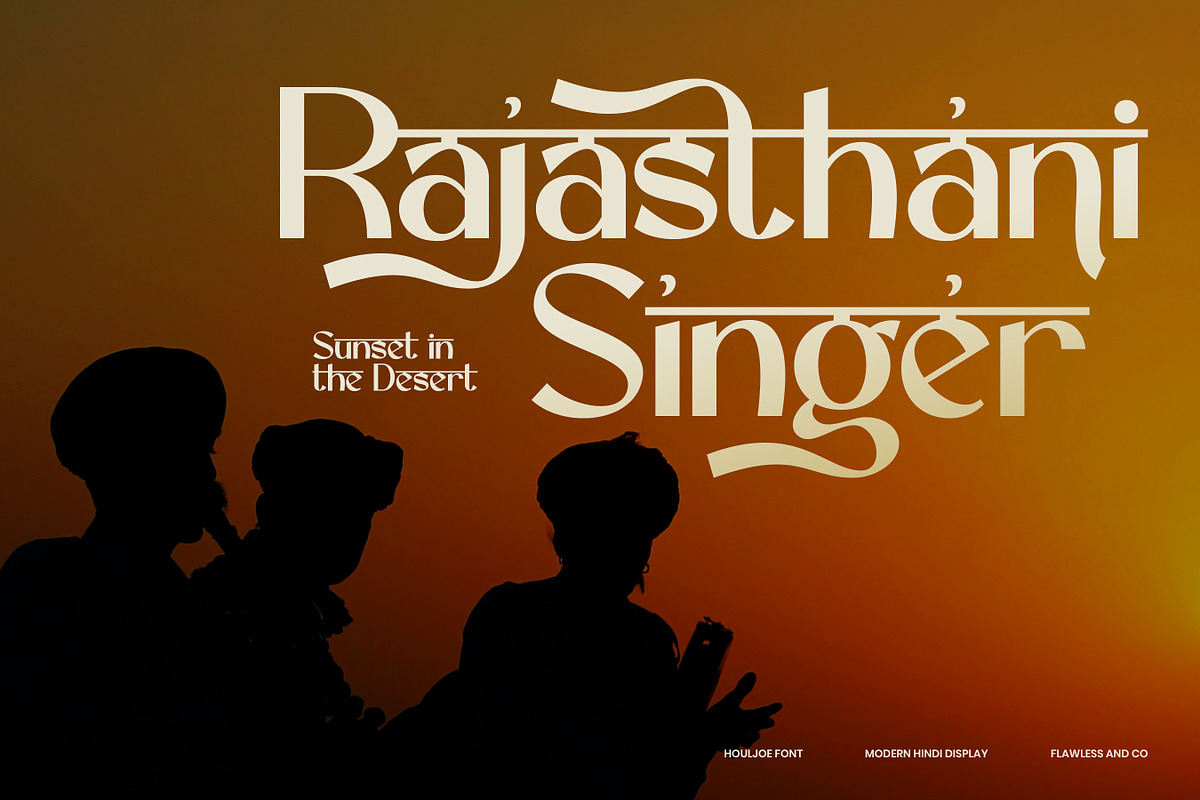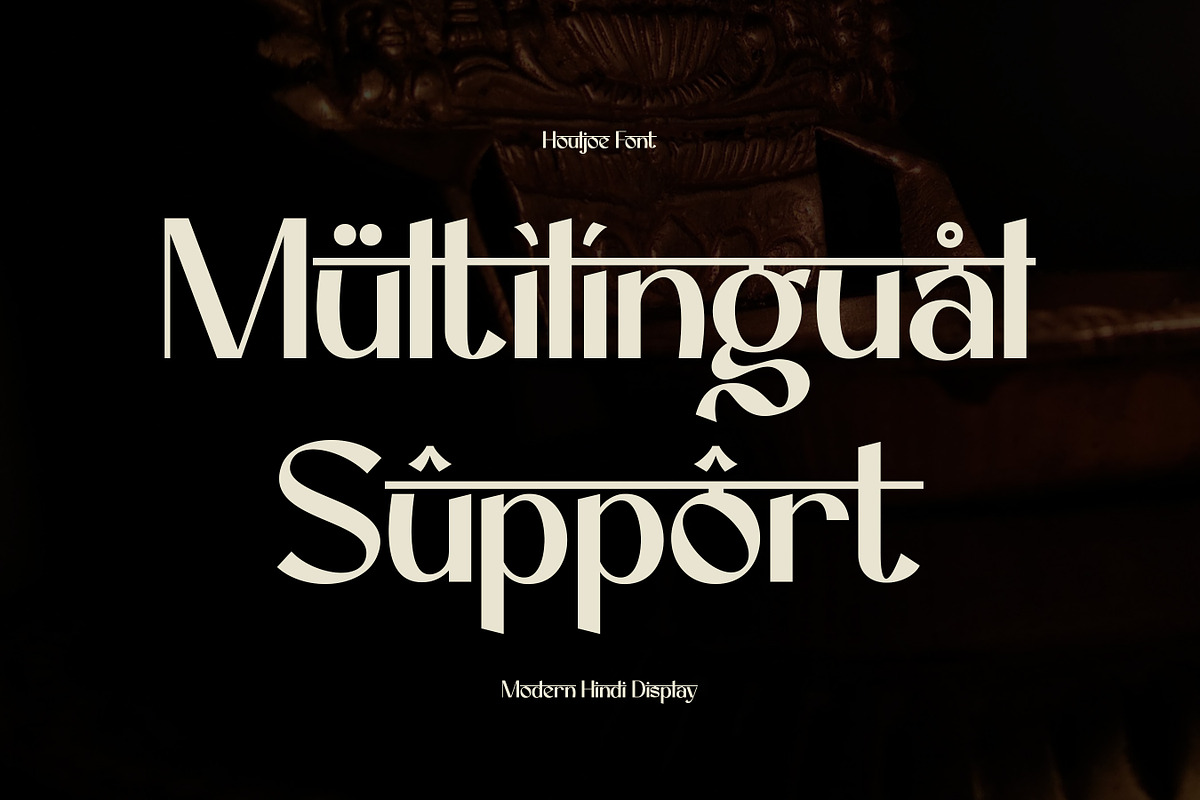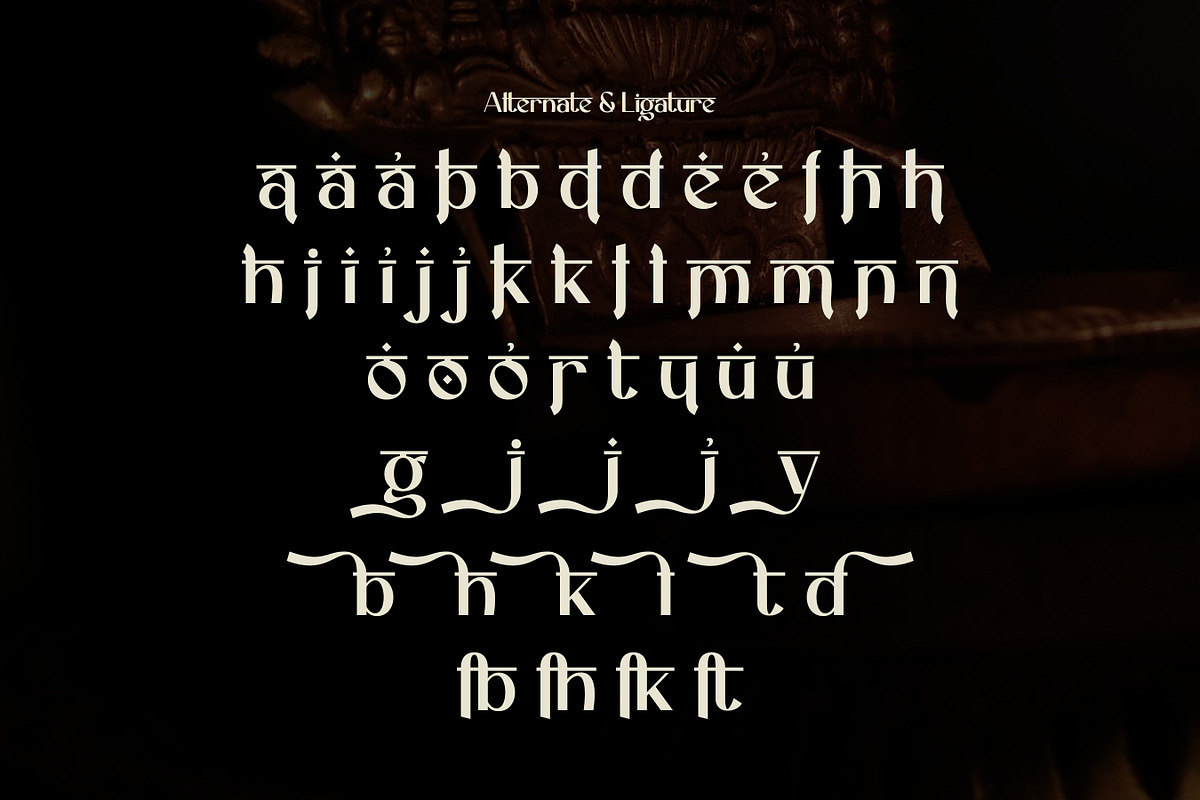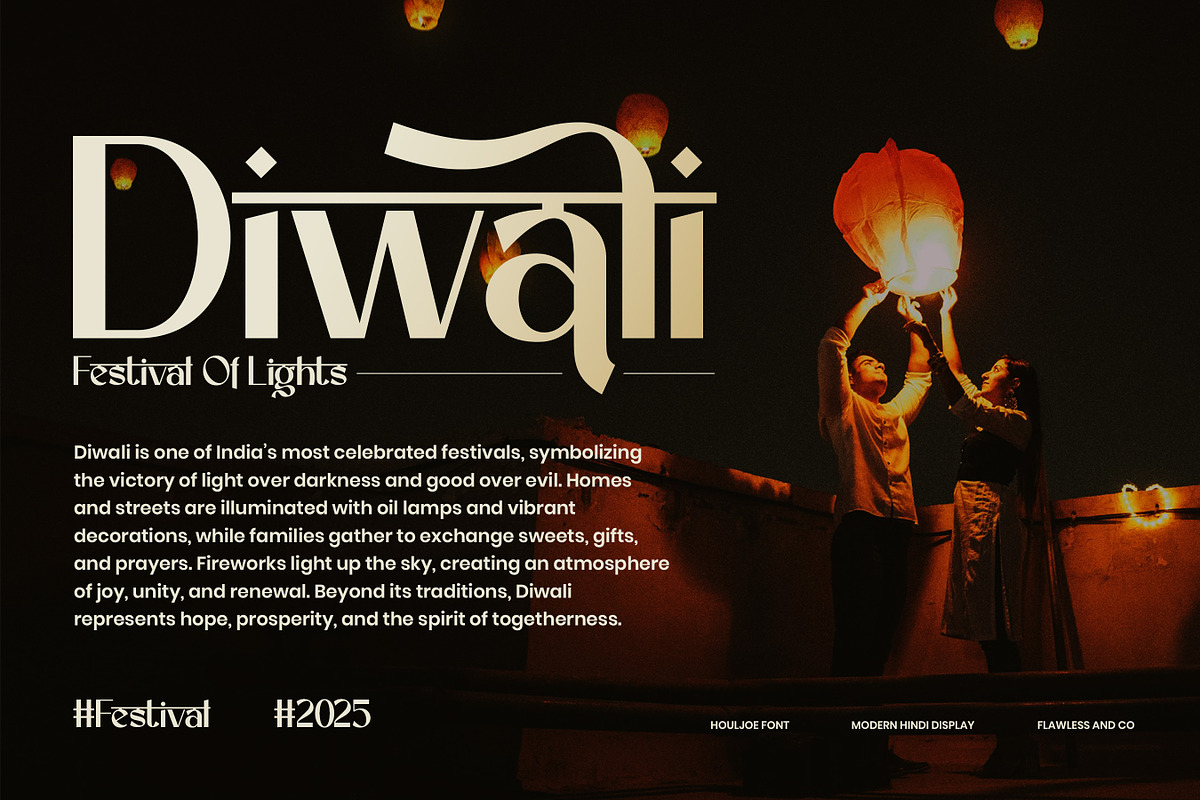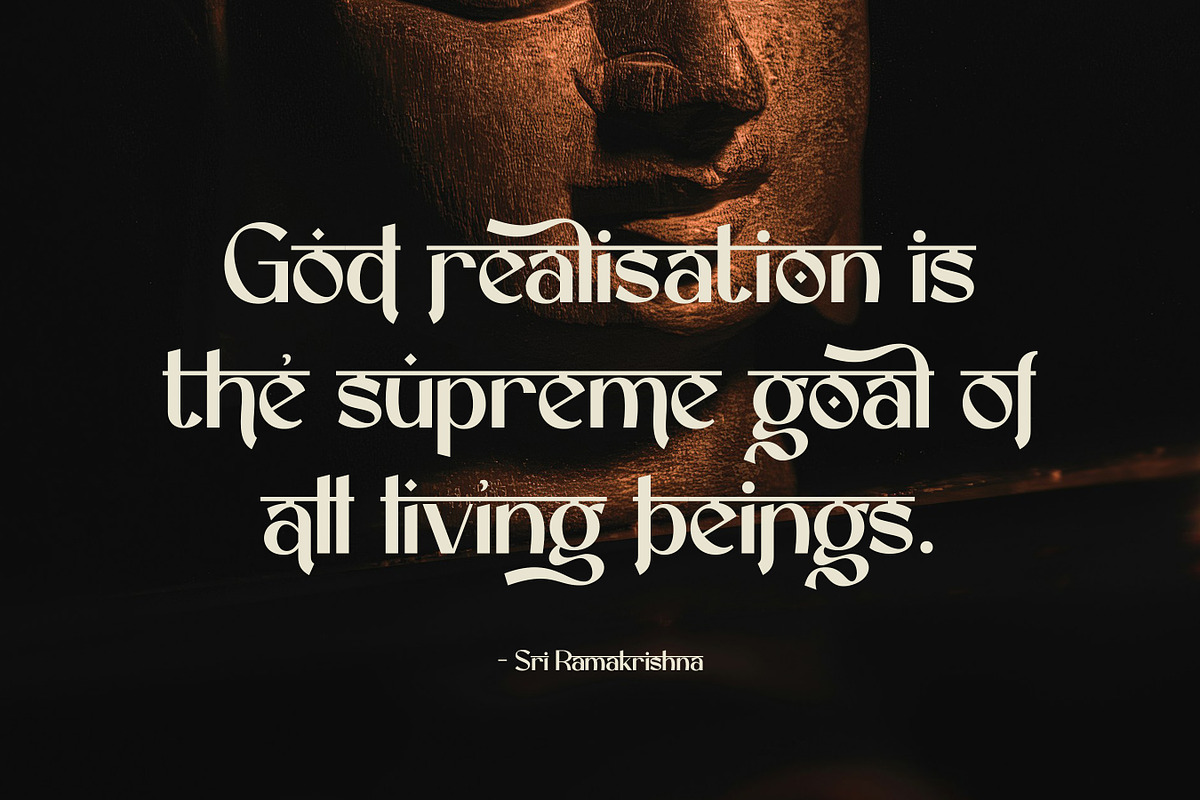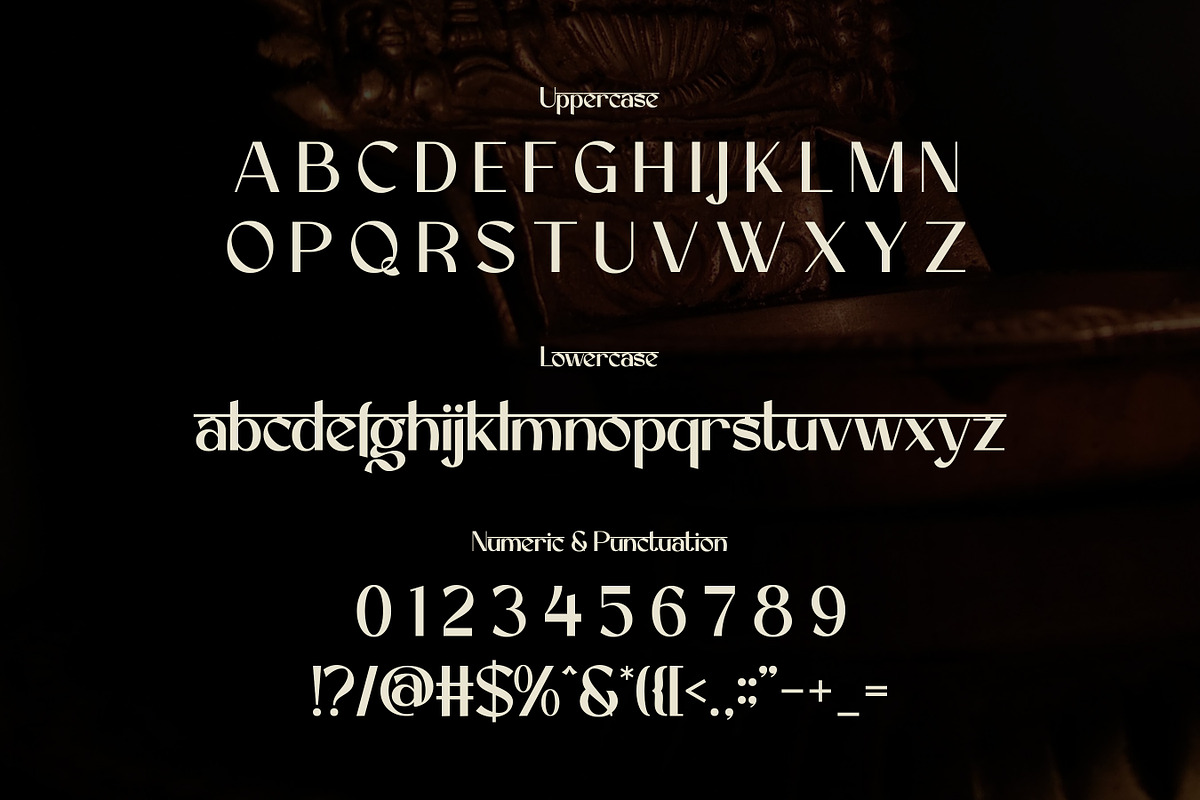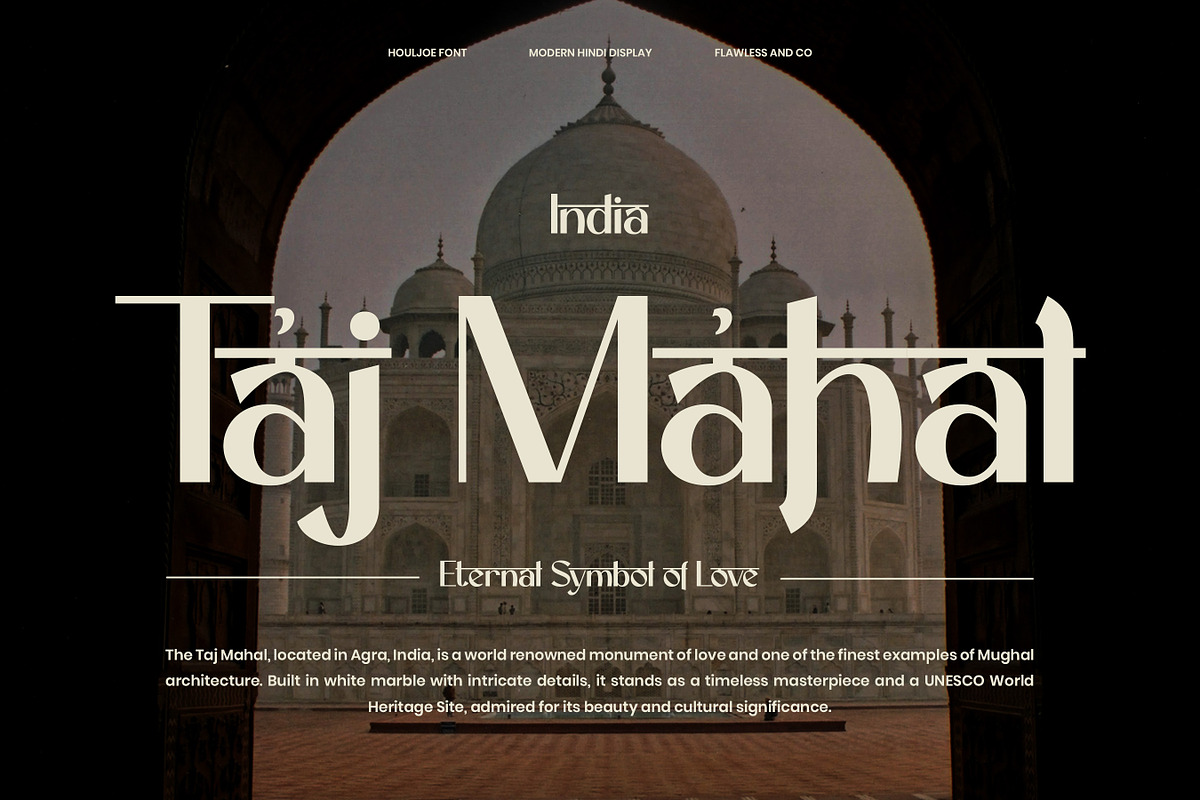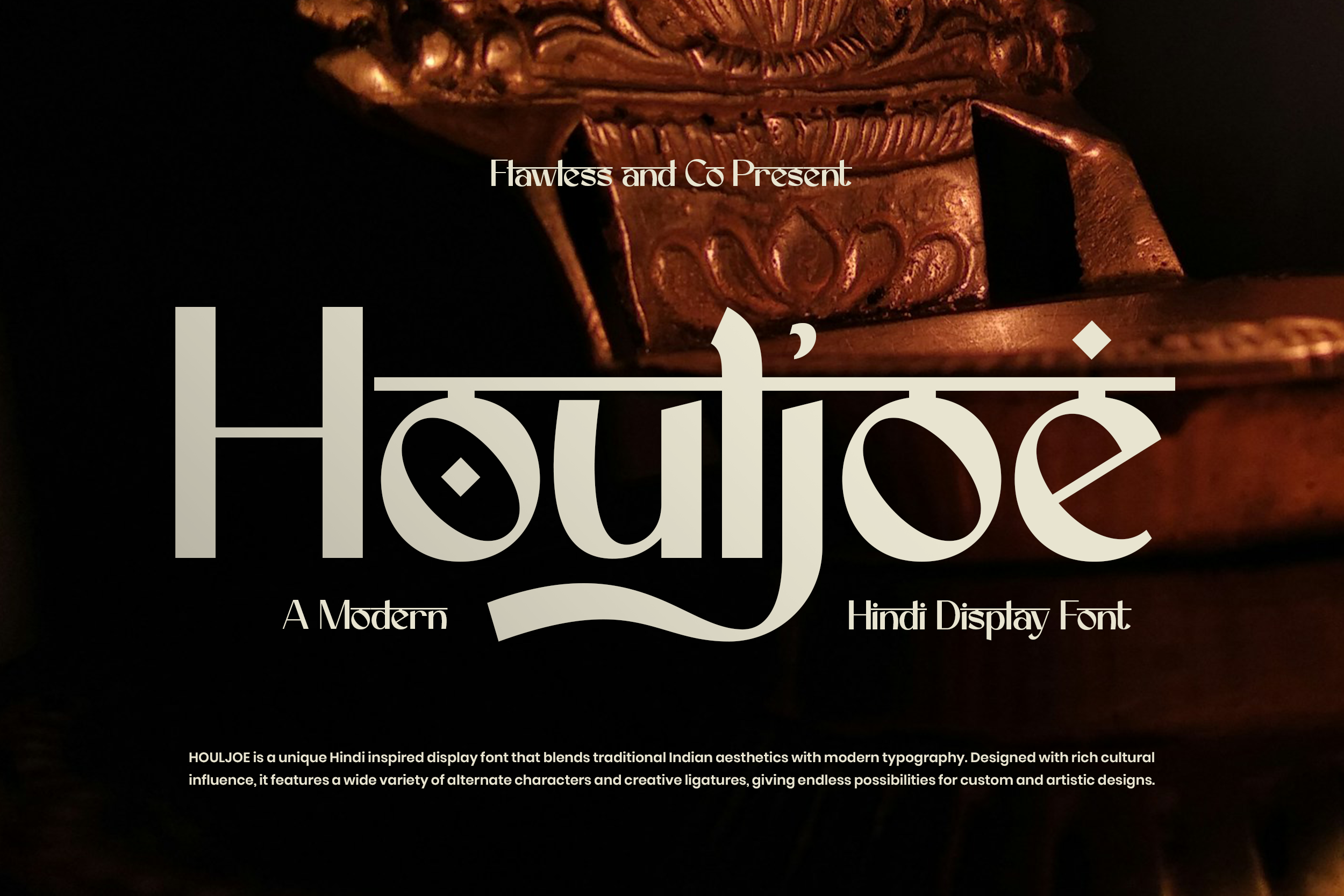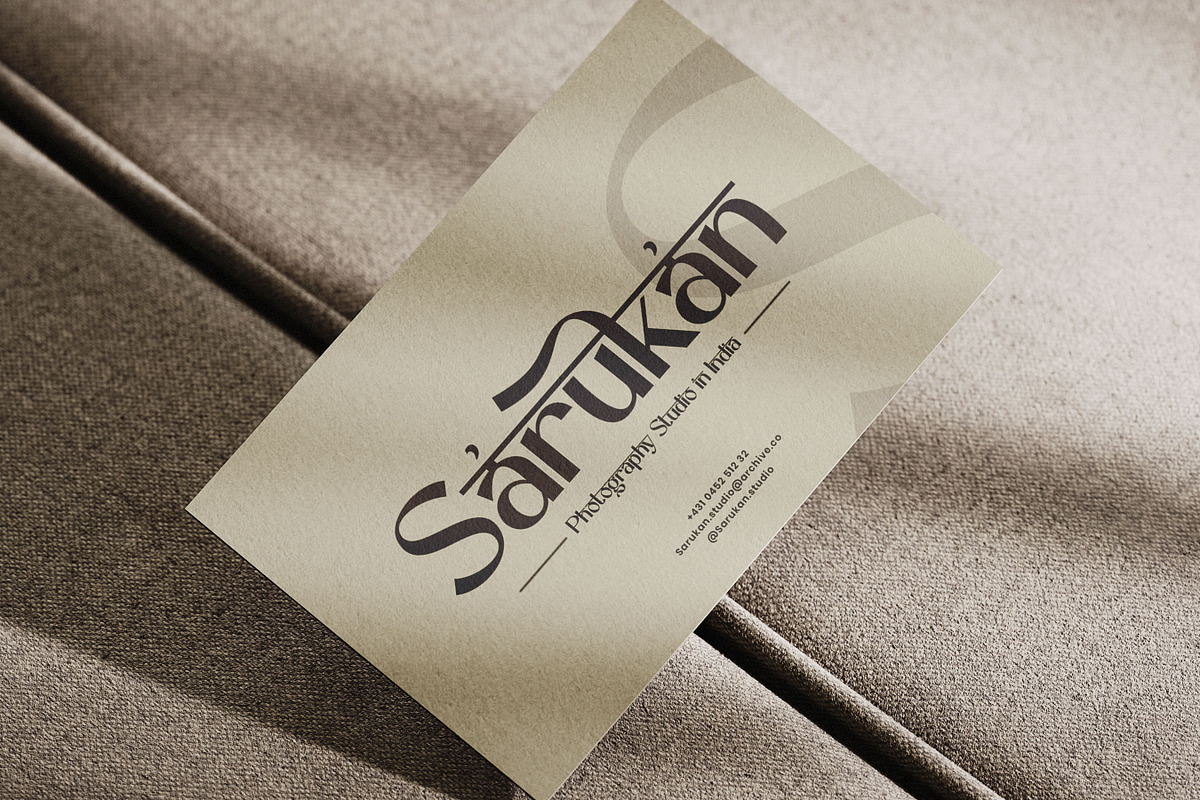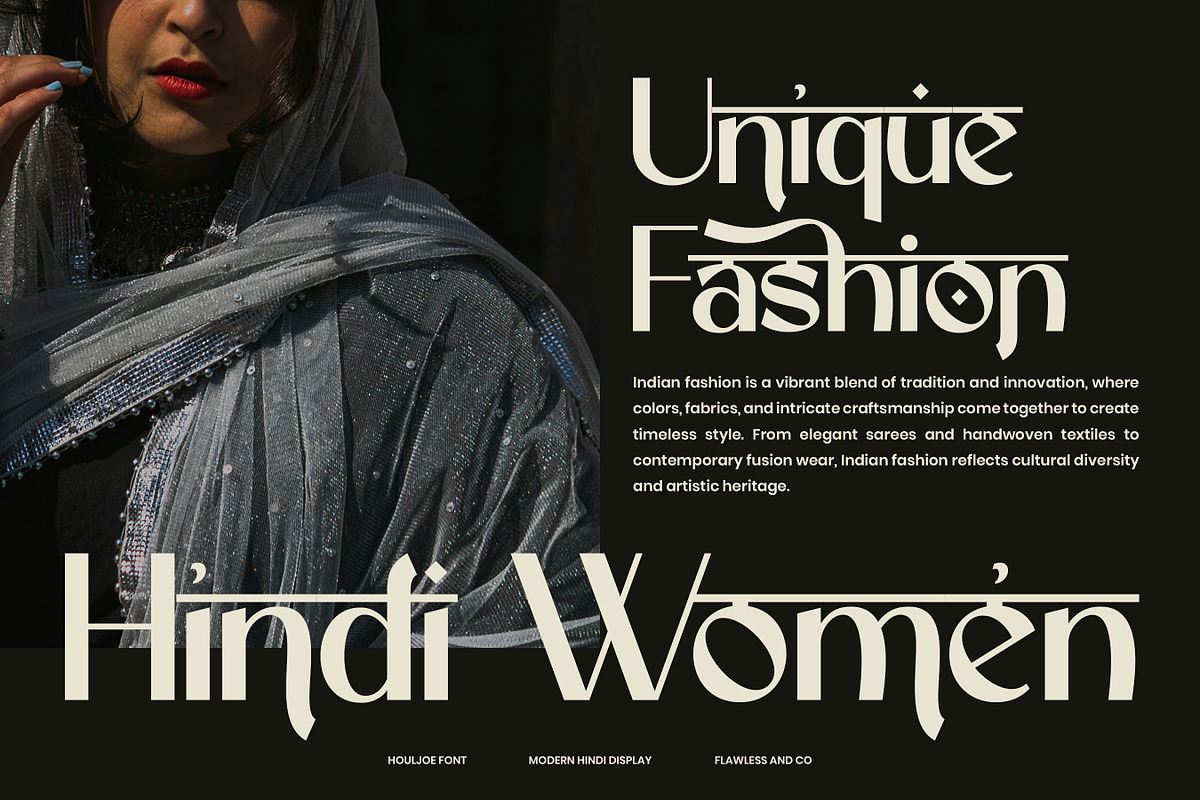
Houljoe - Hindi Display Font
Houljoe - Modern Hindi Display Font
Houljoe is a bold and artistic Hindi-inspired display font that merges cultural heritage with contemporary design. With its unique letterforms and elegant details, it brings a touch of authenticity while staying versatile for modern creative projects. Crafted with inspiration from traditional Hindi aesthetics, Houljoe offers a collection of alternate characters and stylistic ligatures, giving designers endless ways to customize and experiment. Whether for branding, editorial, packaging, or artistic titles, this font adds sophistication and character to every design it touches.
Who Should Use houljoe?
Houljoe is perfect for designers, brands, and creatives who want to combine cultural richness with bold modern design.
This font is especially suitable for:
- Grap hic designers seeking unique and artistic typefaces
- Branding agencies creating distinctive brand identities
- Businesses that want to highlight cultural or heritage-inspired aesthetics
- Editorial and magazine designers needing bold and stylish display typography
- Packaging and product designers aiming for eye-catching, memorable visuals
- Creatives working on logos, posters, and marketing materials with a modern cultural twist
A Must-Have Font for "Brand and Logo" Creators and Designers
Houljoe is a must-have font for brand and logo creators who want to craft distinctive, culturally-inspired designs. Its modern Hindi display style brings a unique blend of tradition and innovation, making every logo or brand identity stand out with character and depth. Perfect for businesses, agencies, and independent designers, Houljoe ensures your brand visuals carry both elegance and originality—capturing attention and leaving a lasting impression.
Why Choose Houljoe for "Brand and Logo" Projects?
Houljoe is more than just a display font—it’s a design asset that elevates brand and logo projects with its distinct Hindi-inspired style. By blending traditional cultural aesthetics with modern typography, Houljoe delivers a bold and memorable identity that sets your work apart. With its wide range of alternates and ligatures, it offers flexibility and creative freedom, ensuring every logo feels unique and tailored. Whether for premium brands, creative agencies, or personal projects, Houljoe adds sophistication, authenticity, and artistic impact to your branding.
Suitable For
- Brand identities and professional logo design
- Luxury product packaging and premium labels
- Cultural and artistic event promotions
- Editorial layouts, magazines, and book covers
- Creative agencies and advertising projects
- Social media graphics and digital marketing
- Wedding invitations and elegant stationery
- Poster designs, album covers, and visual branding